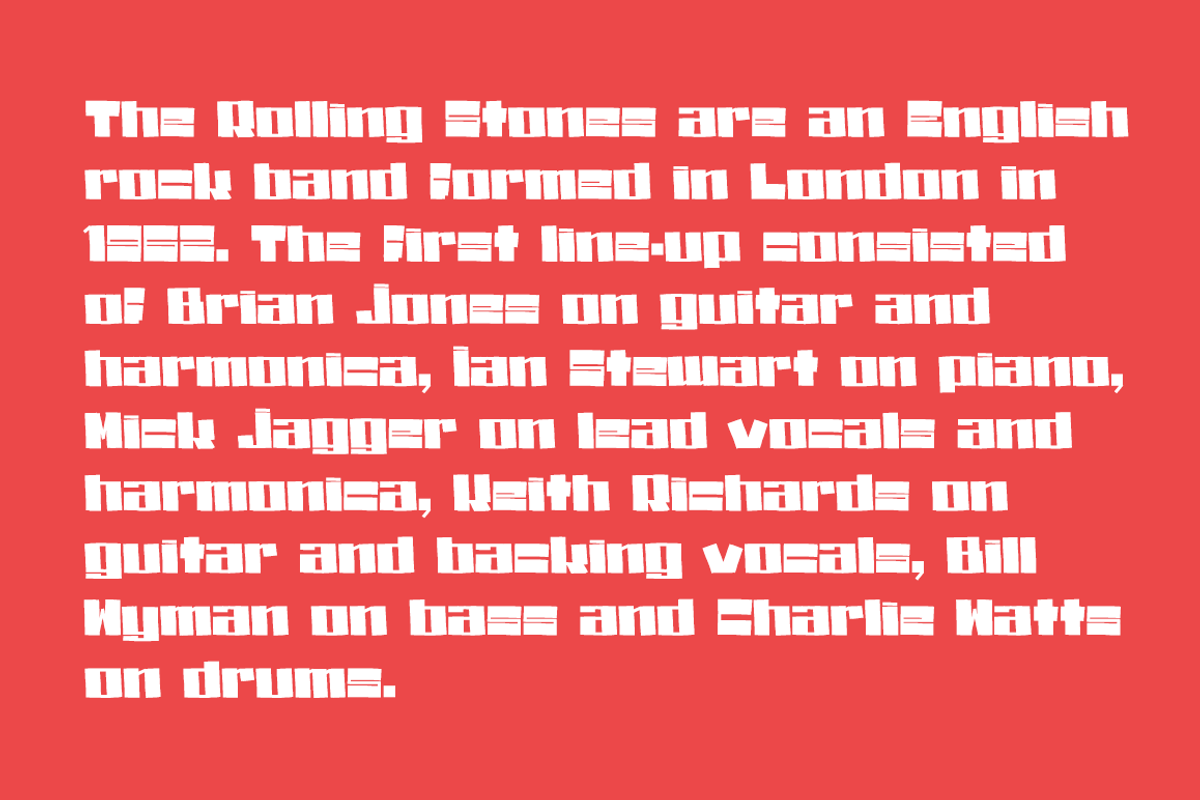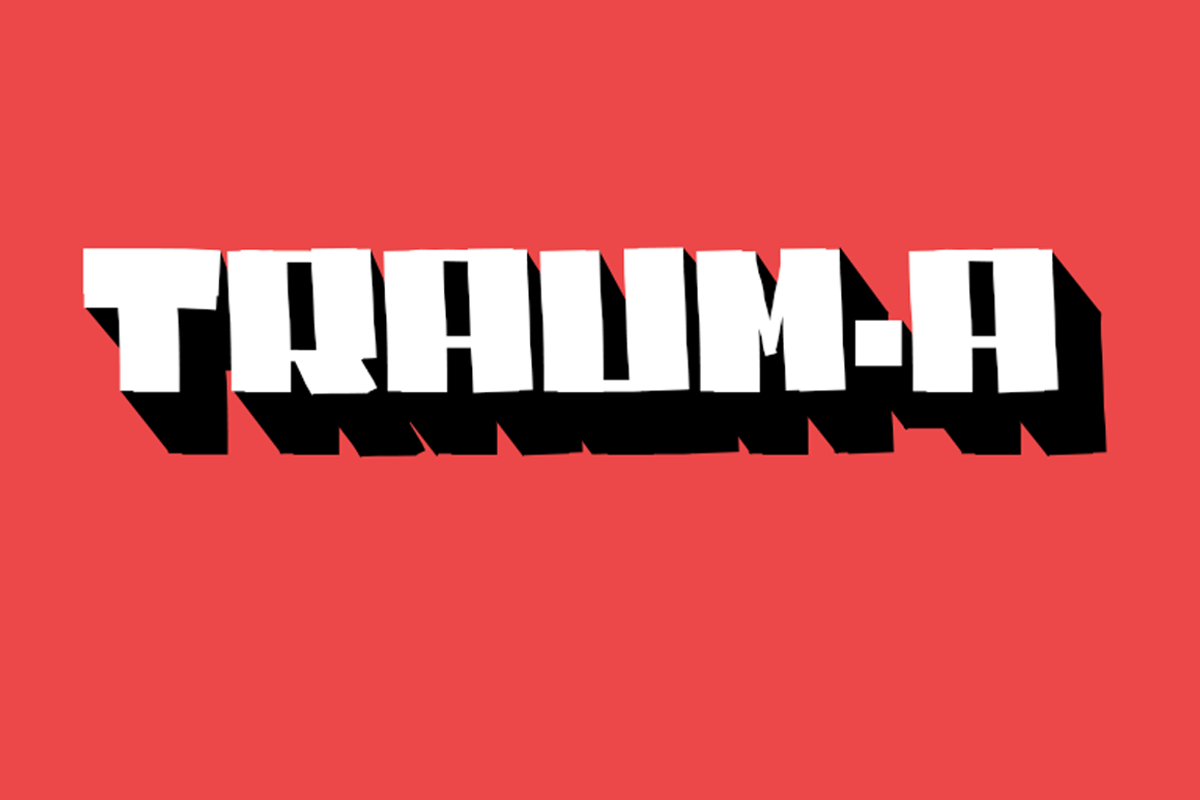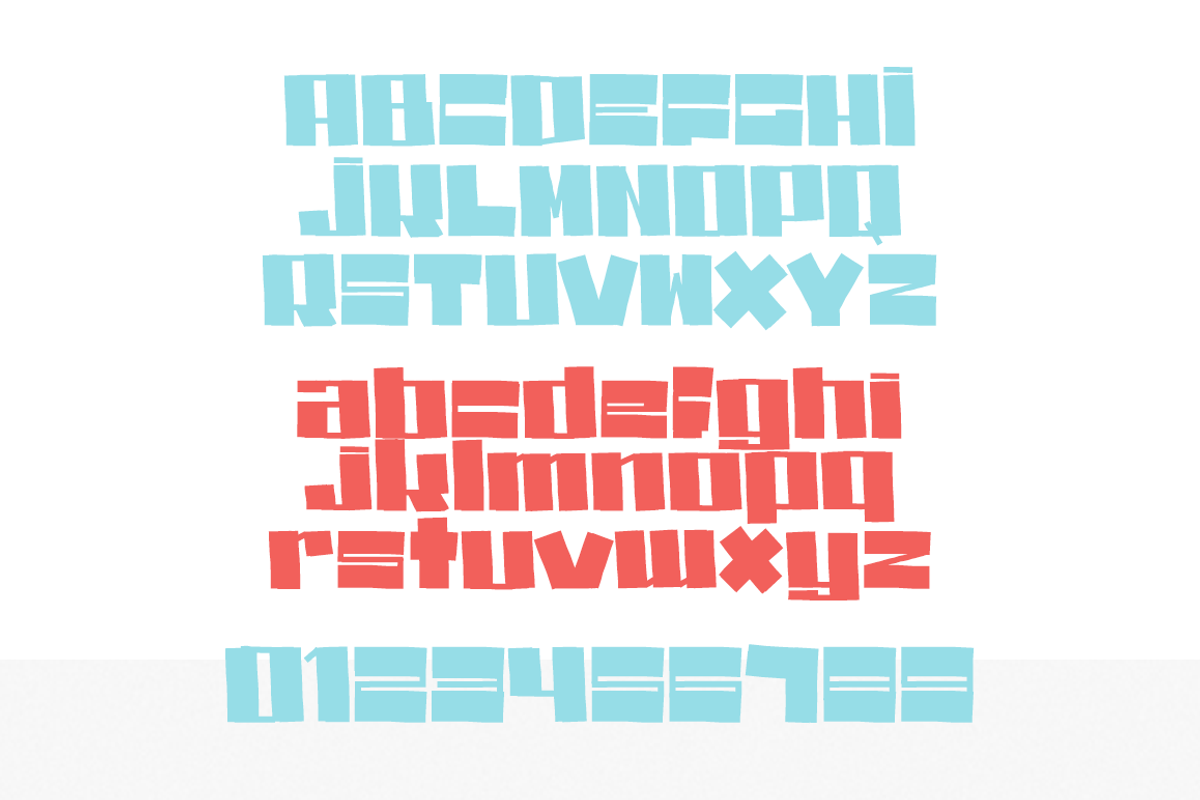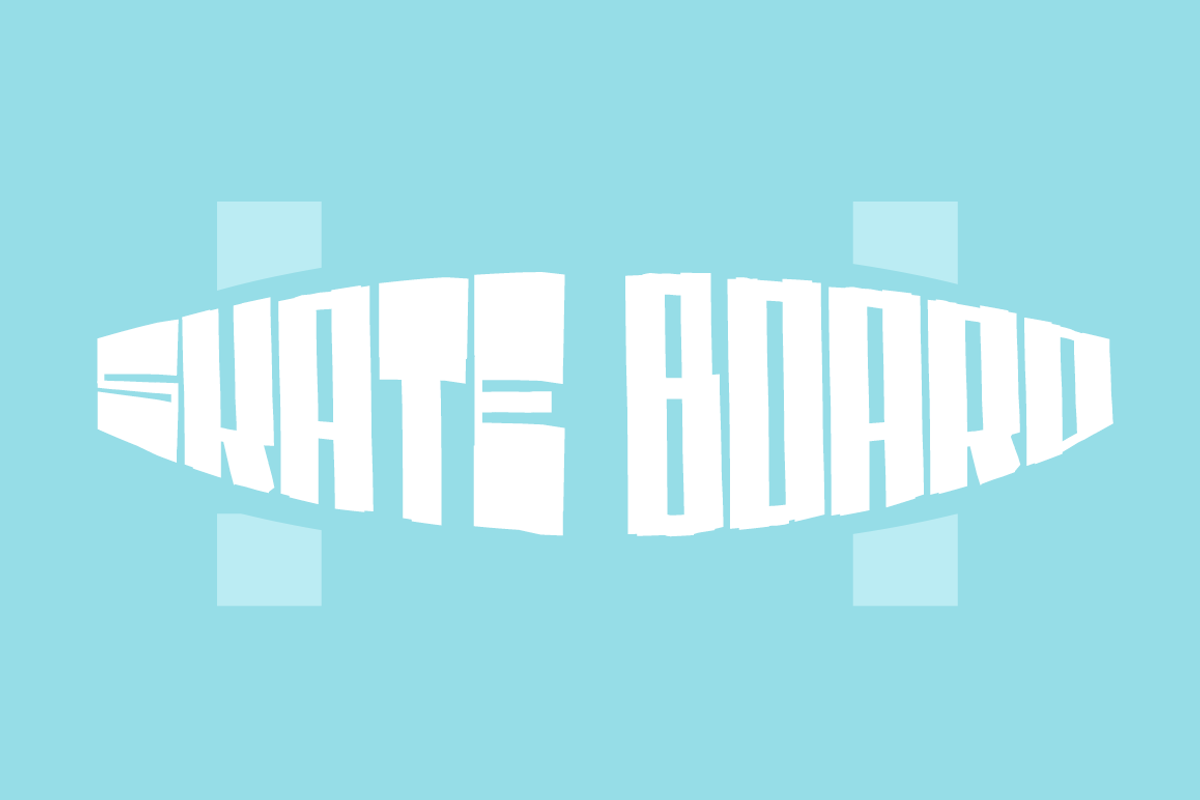
TRAUM-A - font PROMO 50% OFF by David is Creative is a font selected for branding, posters, packaging, typography.
- This font works well with small or big text in uppercase or lowercase.
TRAUM-A - font PROMO 50% OFF by David is Creative fits naturally into Branding, posters, packaging, typography.